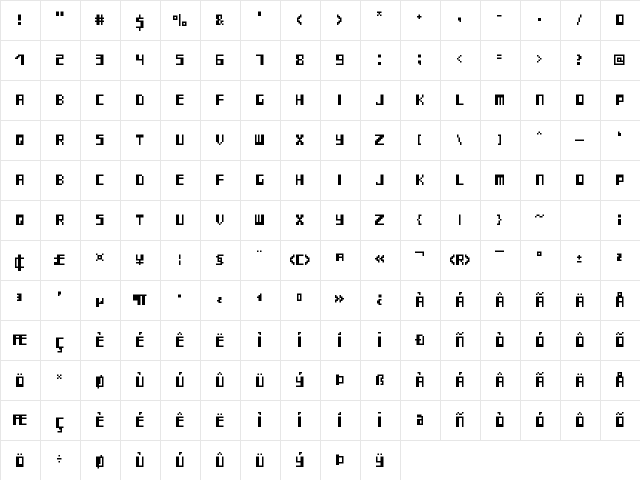
Polybius1981 Medium
Design Context for Polybius1981 Typeface
Polybius1981 is a composed and adaptable typeface that performs quietly and consistently across a wide range of design contexts.